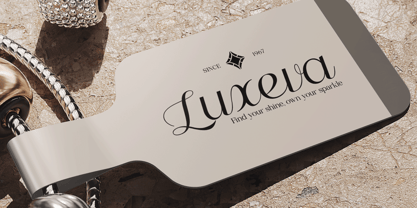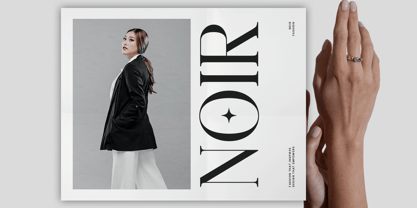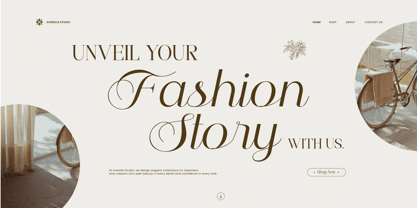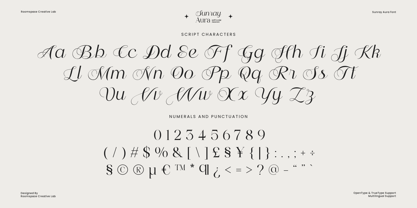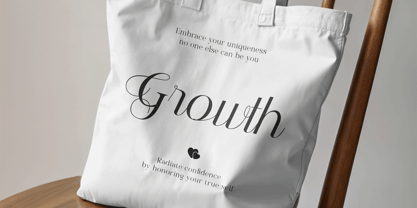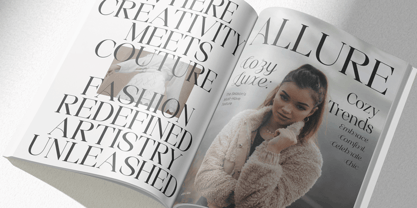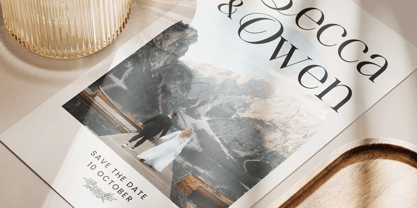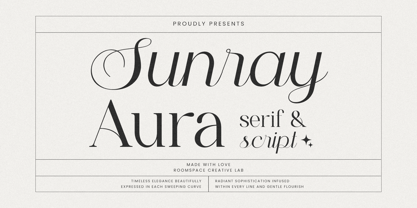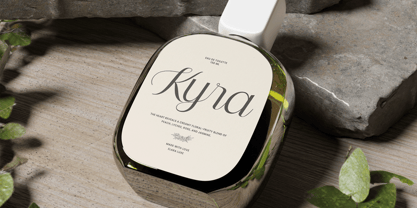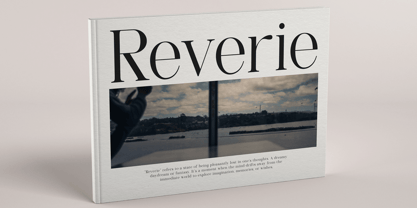
Sunray Aura
The Sunray Aura Font Family was designed by Bakhrudin Ja'far and published by Jafar07. Sunray Aura contains 2 styles and family package options. More about this family
Introducing Sunray Aura an enchanting fusion of serif and script elegance. This typeface captures the perfect harmony between timeless sophistication and radiant charm. The serif style brings a classic, graceful foundation, while the script flows effortlessly with gentle swashes and feminine curves. Sunray Aura is designed to evoke beauty, warmth, and refinement perfect for anyone seeking a font that feels both luxurious and heartfelt. Every detail of Sunray Aura is crafted with care to ensure perfect balance and versatility. The serif version features clean, structured forms with subtle flair, while the script offers smooth, sweeping lines that feel natural and elegant. Together, they create a stunning pairing for typography lovers. With excellent kerning, refined contrast, and well-balanced proportions, this duo works beautifully in both print and digital design projects. Use Sunray Aura to elevate your creative work and tell your story with style. Ideal for branding, wedding invitations, editorial layouts, packaging, social media designs, and more it brings an effortless charm that captivates at first glance. Let Sunray Aura add a touch of timeless beauty and sophistication to your next design project. Try it today and make your brand shine with grace and confidence.